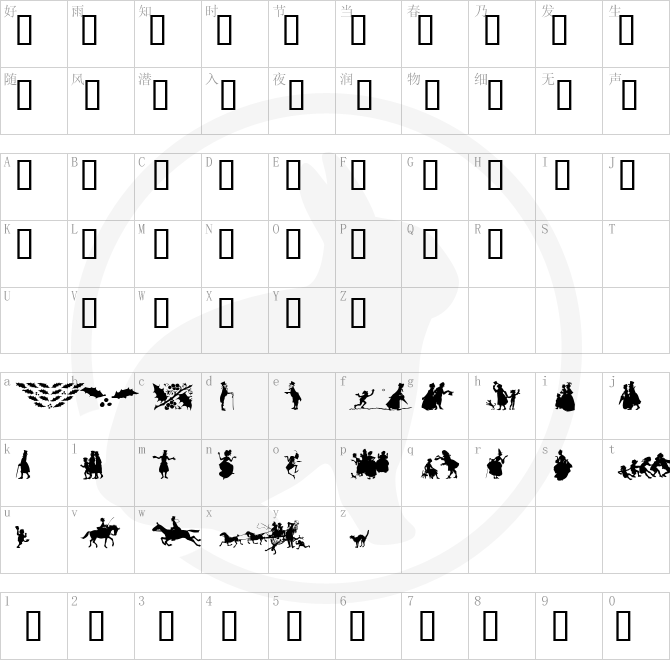
- Font Name:Rackham Holiday Ornament
Rackham-Holiday-Ornament.ttf is a very beautiful artistic font, Rackham-Holiday-Ornament.ttf is widely used in the design and printing of various books and pictures,Rackham-Holiday-Ornament.ttf has a strong visual impact,Rackham-Holiday-Ornament.ttf is a commonly used font in newspapers, magazines and books, and is used in posters, e-commerce Poster design, store design, logo design, font design and other fields.Rackham-Holiday-Ornament.